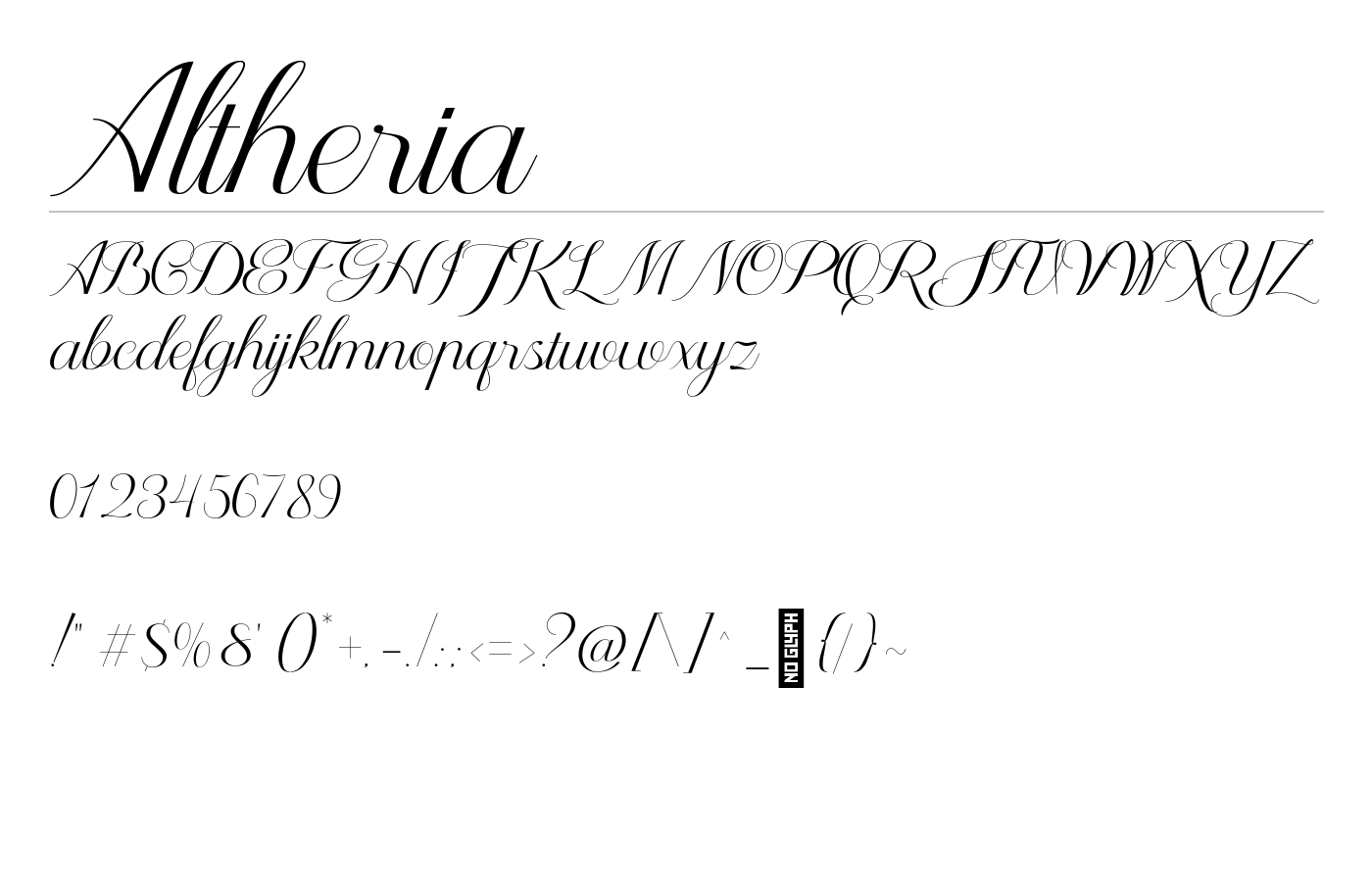
Altheria is an elegant, high-contrast script font featuring delicate, flowing letterforms with fine, sharp strokes and graceful swashes. Its slender, calligraphic style conveys sophistication and luxury, making it ideal for upscale branding, invitations, and editorial headlines where a refined, artistic touch is desired. This font works best in display settings, lending an air of timeless beauty and elegance to any design.
| Font family | Altheria Font |
| Languages supported | Latin, Symbols, Thai |
| Designer | Ardyana Putra |